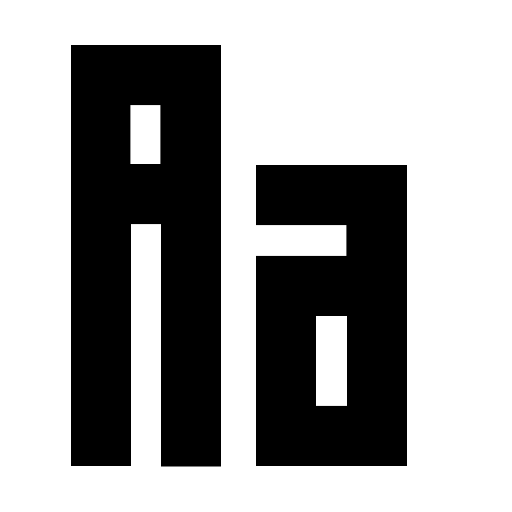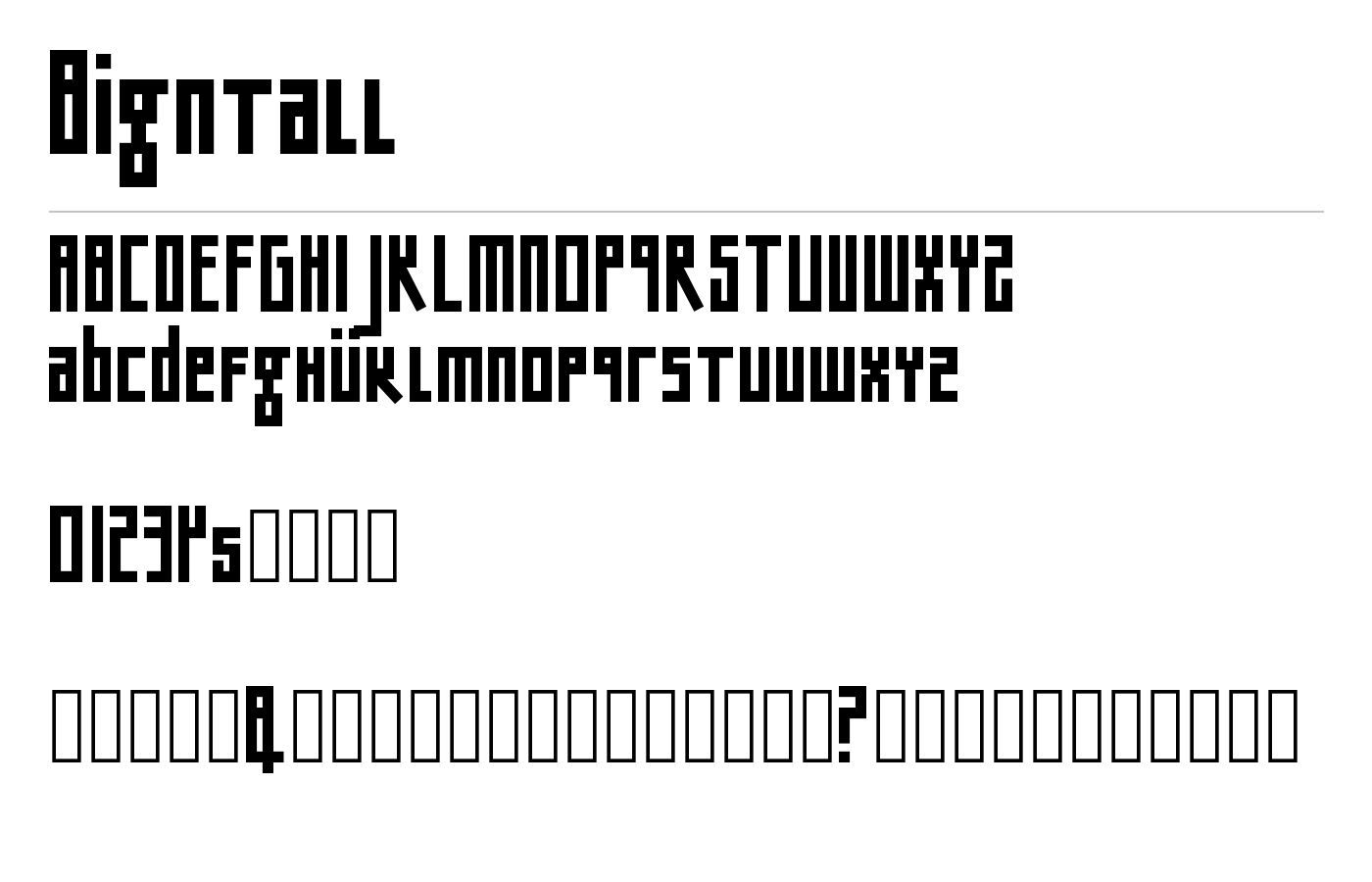
Bigntall is a bold, condensed sans serif font with a distinctive geometric, blocky style that gives it a strong, modern, and slightly mechanical feel. Its tall, narrow letterforms with uniform stroke weight and minimal contrast make it ideal for attention-grabbing headlines or branding where a futuristic or industrial vibe is desired. This font works best in display settings such as logos, posters, and websites that want to convey strength and innovation with a clean, edgy look.
Bigntall Font
About Bigntall Font